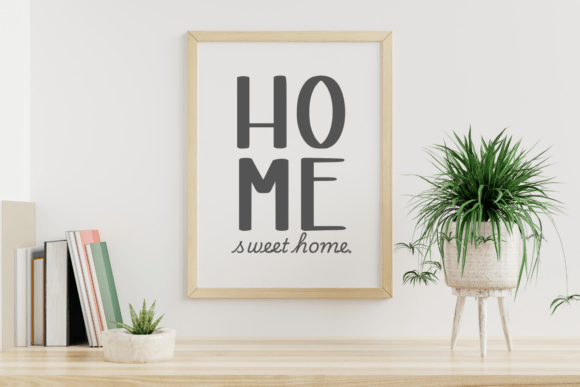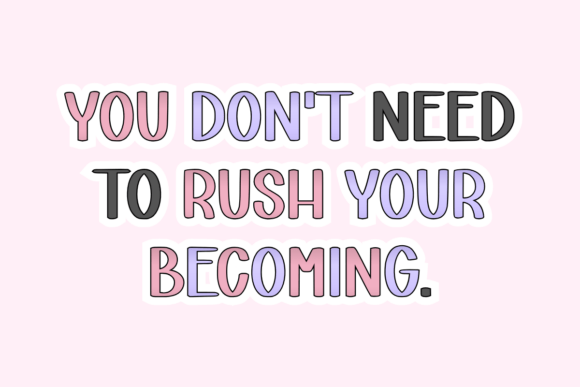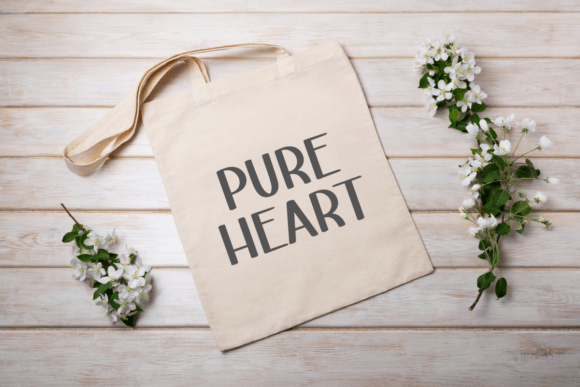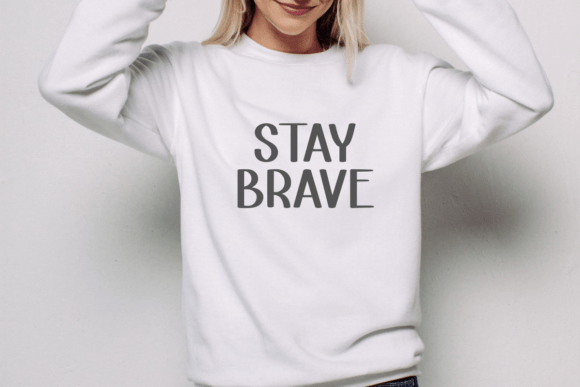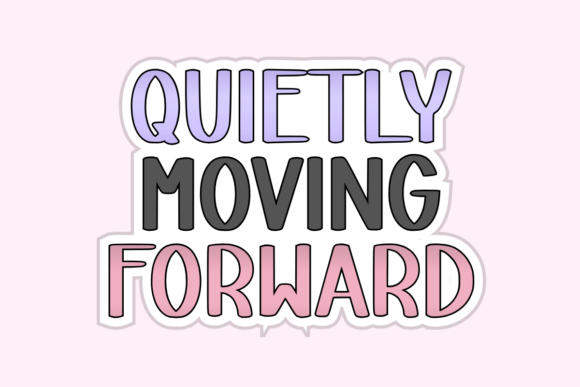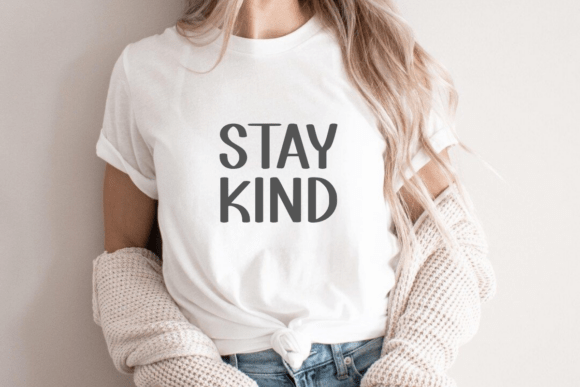
Baby Cupid Font: The Perfect Choice for Crafty Designs
Are you a crafter, designer, or DIY enthusiast looking for a font that adds a touch of warmth and friendliness to your projects? Look no further than the Baby Cupid Font! This adorable sans serif handwriting font is designed to bring a soft, friendly, and natural look to your designs, making it perfect for a wide range of creative projects.
What is Baby Cupid Font?
Baby Cupid Font is a carefully crafted font that boasts a simple, yet charming handwriting style. Its smooth curves and gentle strokes evoke a sense of warmth and approachability, making it an ideal choice for craft projects, planners, stickers, kids’ worksheets, classroom printables, and DIY designs.
Key Features of Baby Cupid Font
- Cute and Friendly Design: Baby Cupid Font features a soft, friendly, and natural look that is sure to capture the hearts of designers and crafters alike.
- Easy to Cut: The font’s simple strokes and smooth curves make it easy to cut using popular cutting machines like Cricut and Silhouette.
- Handcrafted Feel: Baby Cupid Font brings a warm, handcrafted feeling to your designs, perfect for crafty projects that require a personal touch.
- Versatile: This font is perfect for a wide range of projects, including quotes, greeting cards, kids’ labels, coloring pages, worksheets, bullet journals, scrapbooks, and playful graphic projects.
Perfect for Crafting Moms and Designers
Baby Cupid Font is a dream come true for crafting moms and designers who love working with adorable handwritten styles. Whether you’re creating custom gifts, decorations, or educational materials, this font is sure to add a touch of personality and charm to your designs.
Project Ideas Using Baby Cupid Font
The possibilities are endless when it comes to using Baby Cupid Font! Here are some project ideas to get you started:
- Custom Greeting Cards: Create personalized greeting cards for special occasions like birthdays, holidays, and graduations.
- Kids’ Labels and Worksheets: Use Baby Cupid Font to create fun and engaging labels and worksheets for kids.
- Coloring Pages: Design custom coloring pages for kids using Baby Cupid Font and your favorite illustrations.
- Bullet Journals and Planners: Add a touch of personality to your bullet journals and planners with Baby Cupid Font.
- Scrapbooking: Use Baby Cupid Font to create beautiful and personalized scrapbook pages.
Tips for Using Baby Cupid Font
Here are some tips for getting the most out of Baby Cupid Font:
- Experiment with Colors: Try pairing Baby Cupid Font with different colors and textures to add depth and interest to your designs.
- Mix and Match Fonts: Combine Baby Cupid Font with other fonts to create unique and visually appealing designs.
- Use it for Titles and Headings: Use Baby Cupid Font to create eye-catching titles and headings for your projects.
Baby Cupid Font is a versatile and charming font that is perfect for crafty designers and DIY enthusiasts. Its soft, friendly, and natural look makes it ideal for a wide range of creative projects, from craft projects and planners to kids’ worksheets and greeting cards. With its easy-to-cut design and handcrafted feel, Baby Cupid Font is sure to become a favorite among designers and crafters alike.